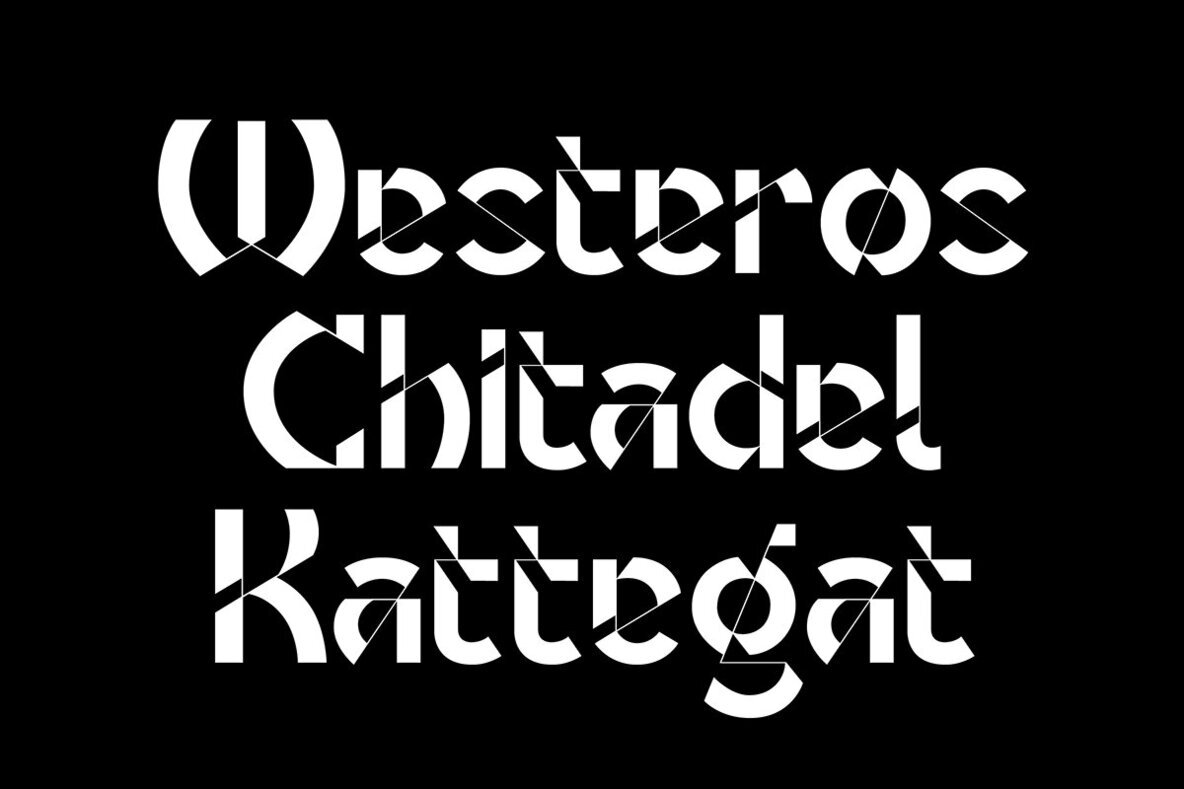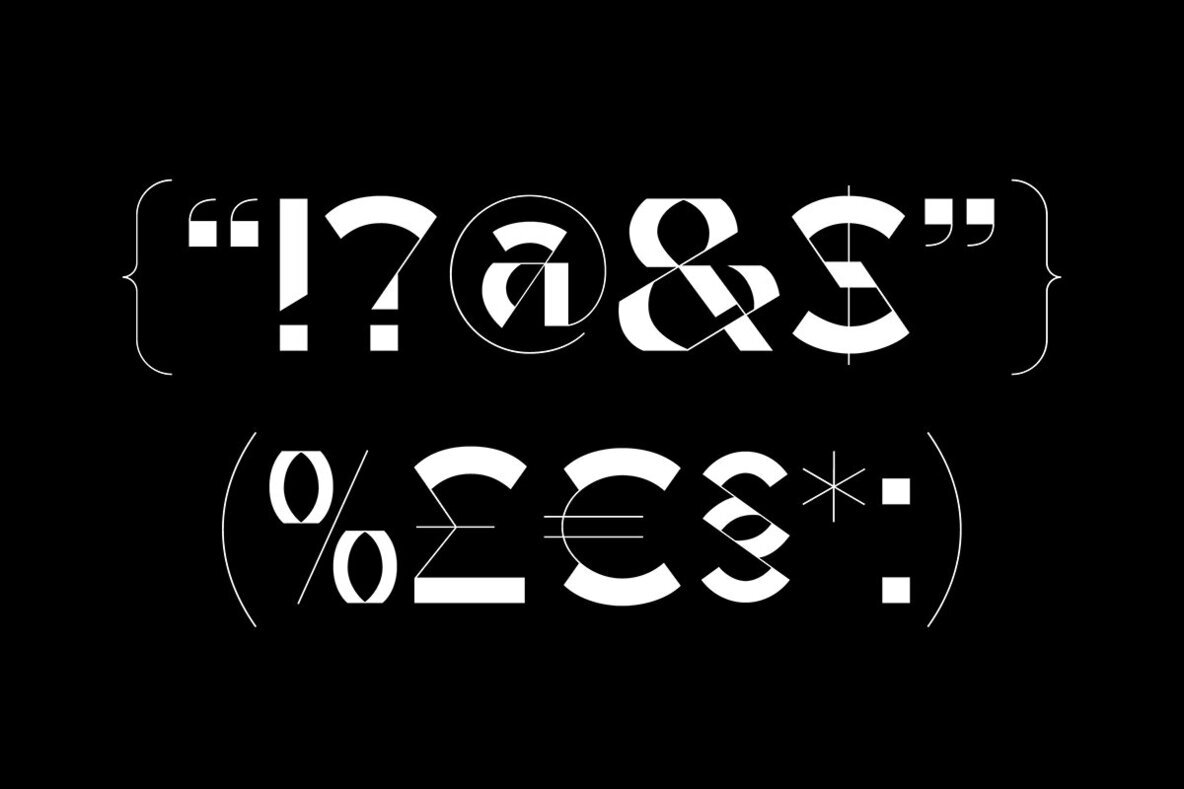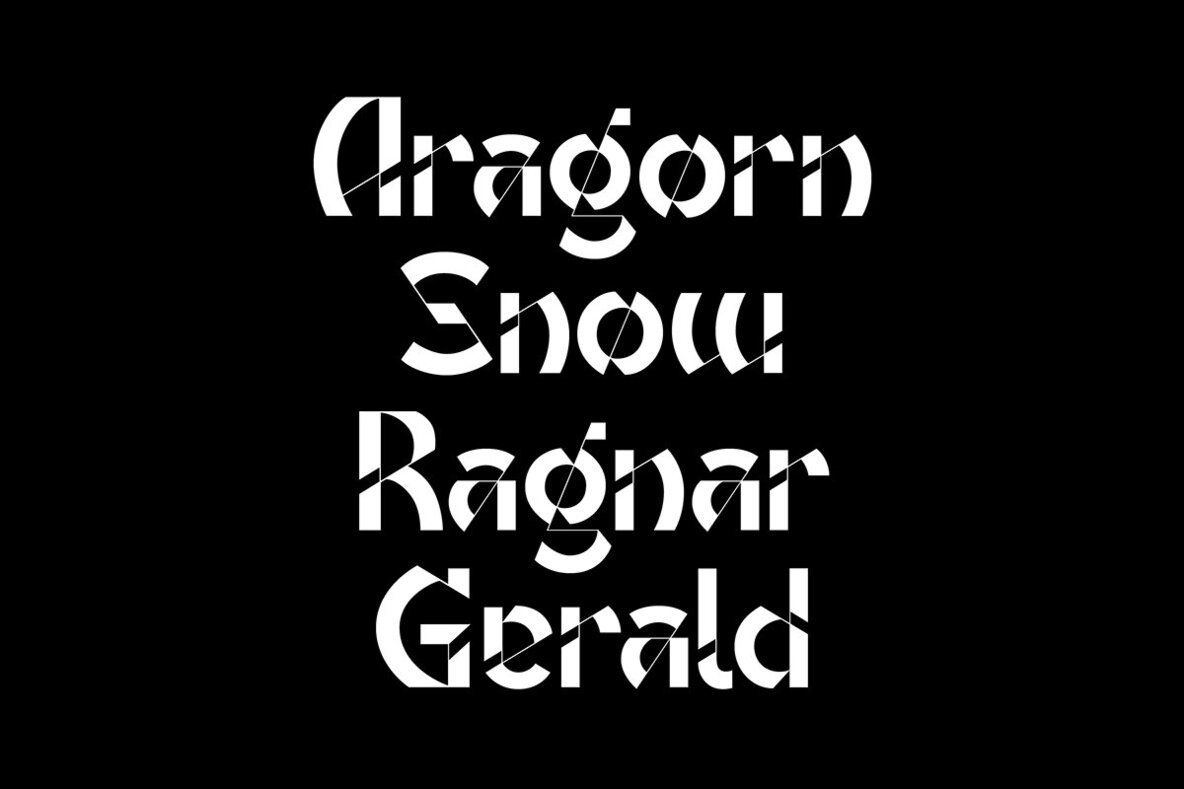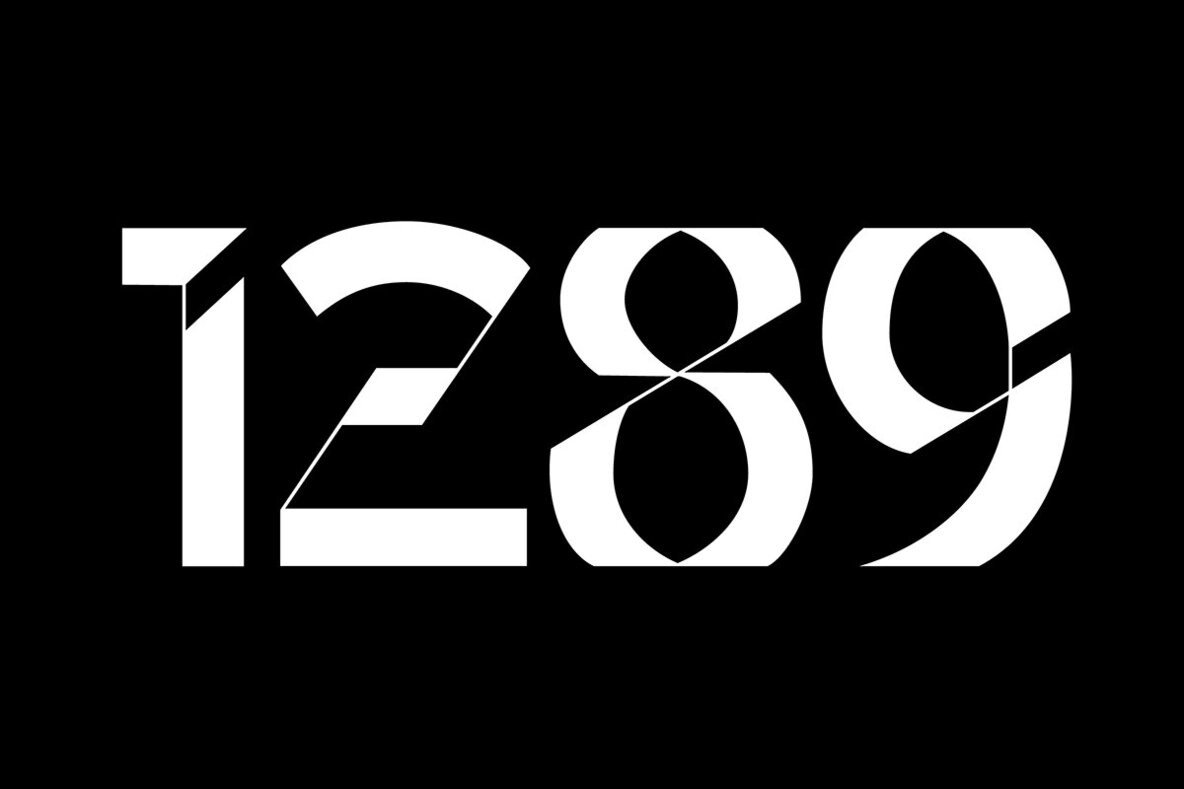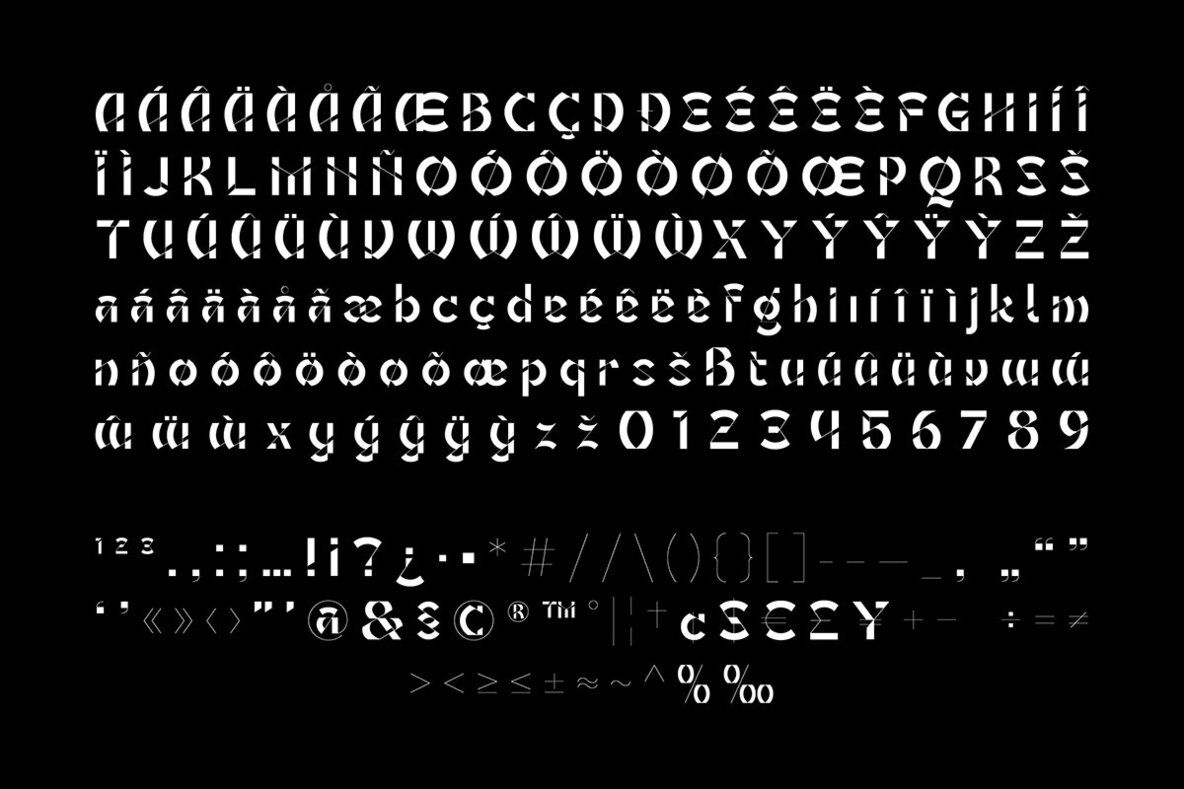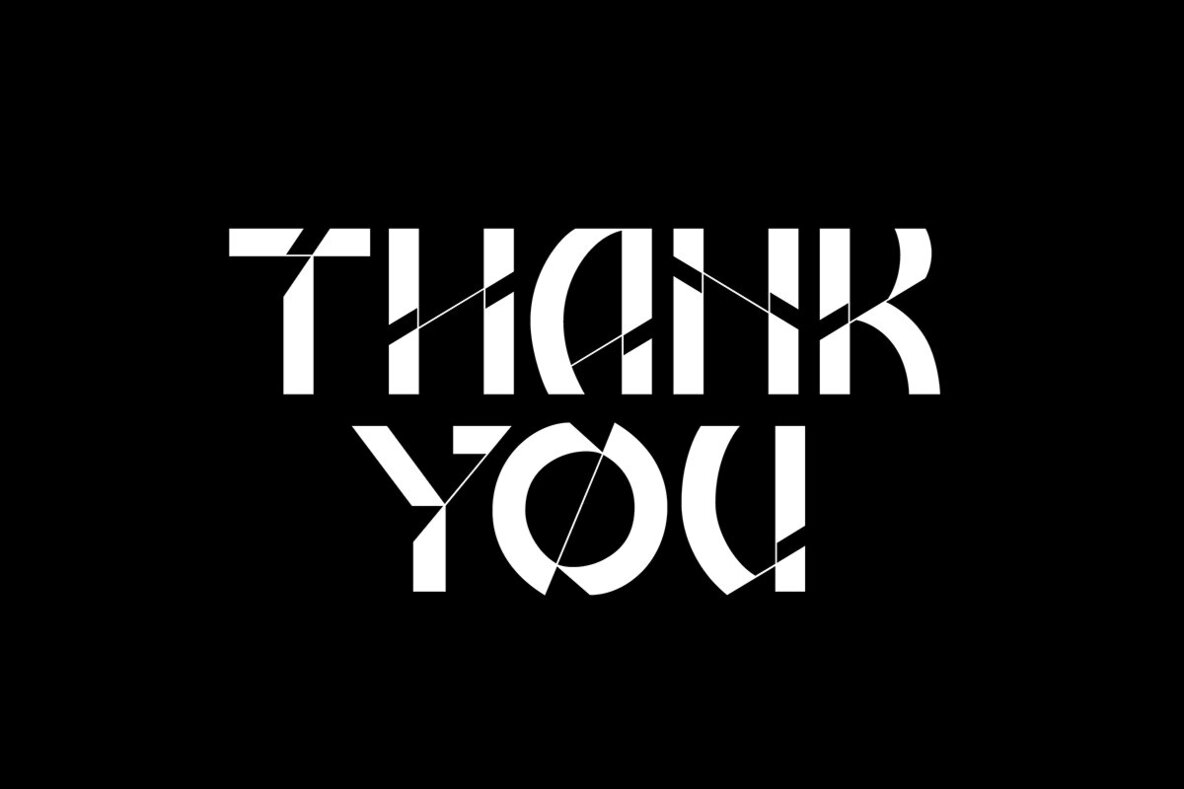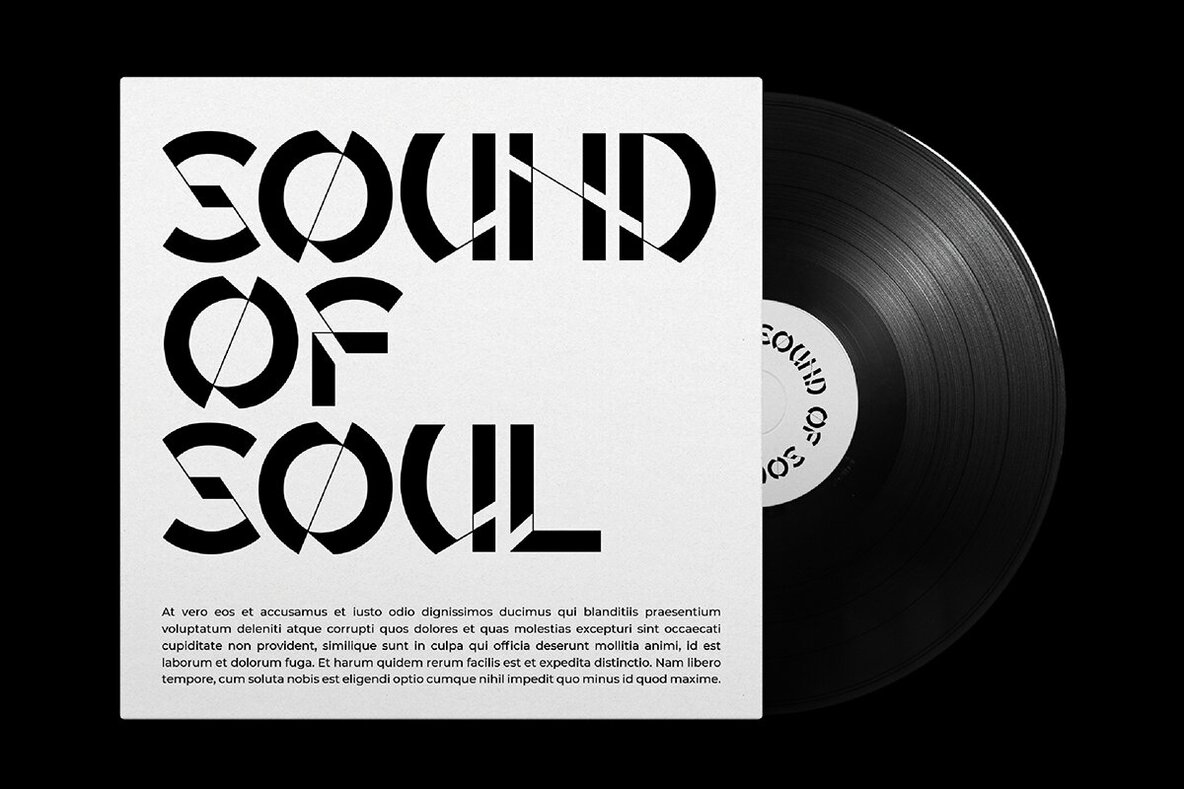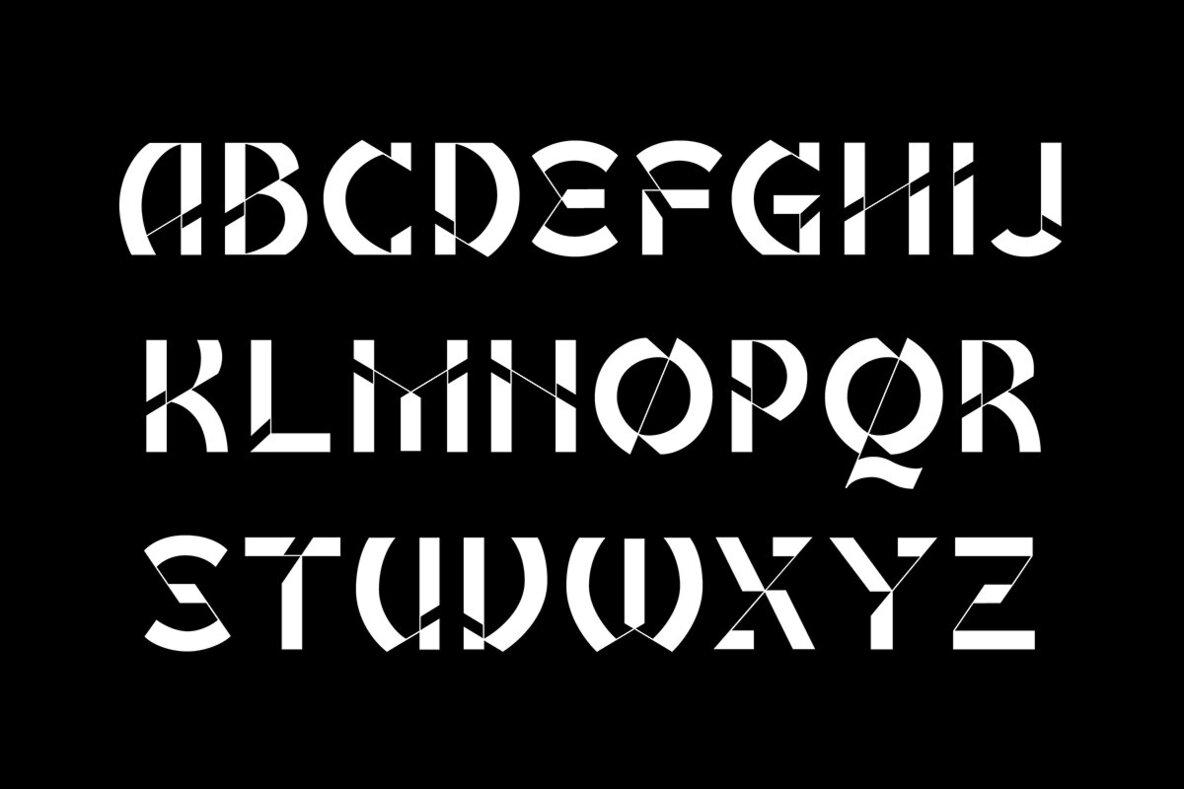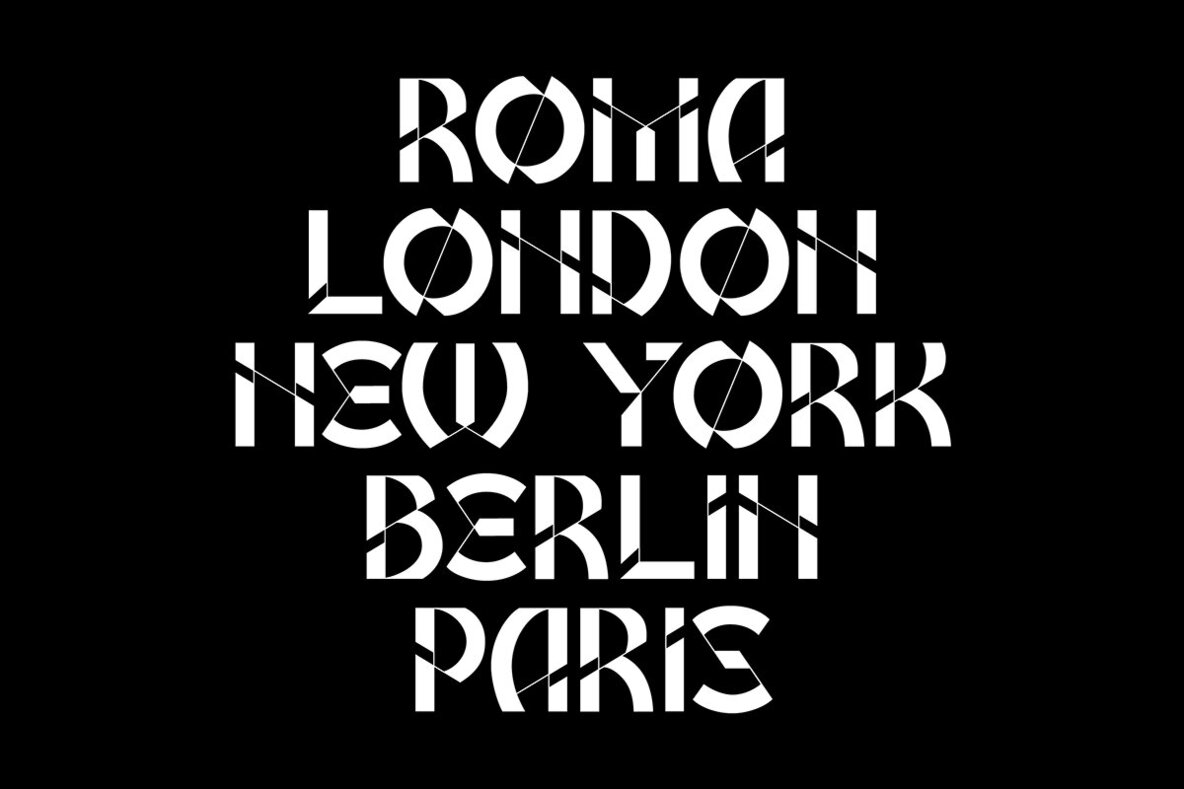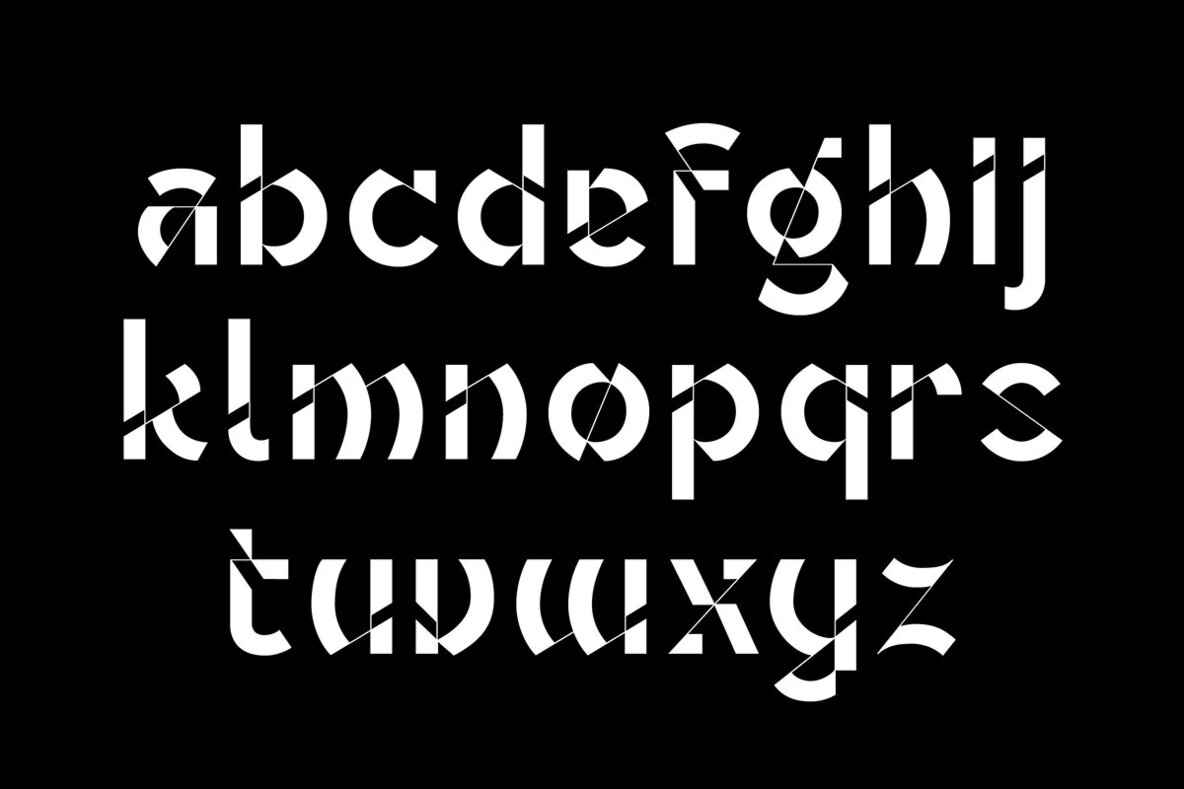
Aegion Font
Aegion Regular
Introducing Aegion: a captivating display font that pays homage to the timeless allure of blackletter style. With its intricate strokes and bold presence, Aegion commands attention, making it the ultimate choice for those seeking to make a statement with their display headings. Unleash the power of Aegion and watch as your designs come to life with unparalleled charisma and distinction.